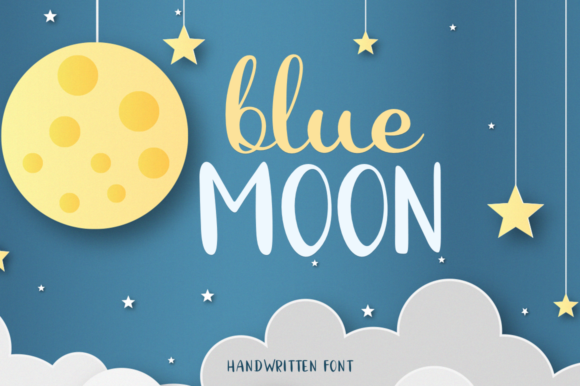
Introduce yourself to the world of Blue Moon Font, a breathtaking script font family that will leave an imprint on your designs like no other. Step into a realm of creativity where your imagination knows no bounds and your projects come alive with a touch of elegance and charm.
With Blue Moon Font, you'll embark on a journey of artistic expression, turning your words into captivating visuals. Let your designs dance with the fluidity of this handwritten script, capturing the essence of your brand or personal style.
Feel the warmth of a summer breeze as you explore the limitless possibilities of Blue Moon Font. Its charming curves and playful characters bring a sense of joy and whimsy to your creations, making them truly unforgettable.
Whether you're a seasoned designer or just starting out, the Blue Moon Font family will be your trusted companion. Embrace the magic of handwritten typography and unlock the potential of your imagination. Let Blue Moon Font transform your designs into masterpieces that capture hearts and leave a lasting impression.